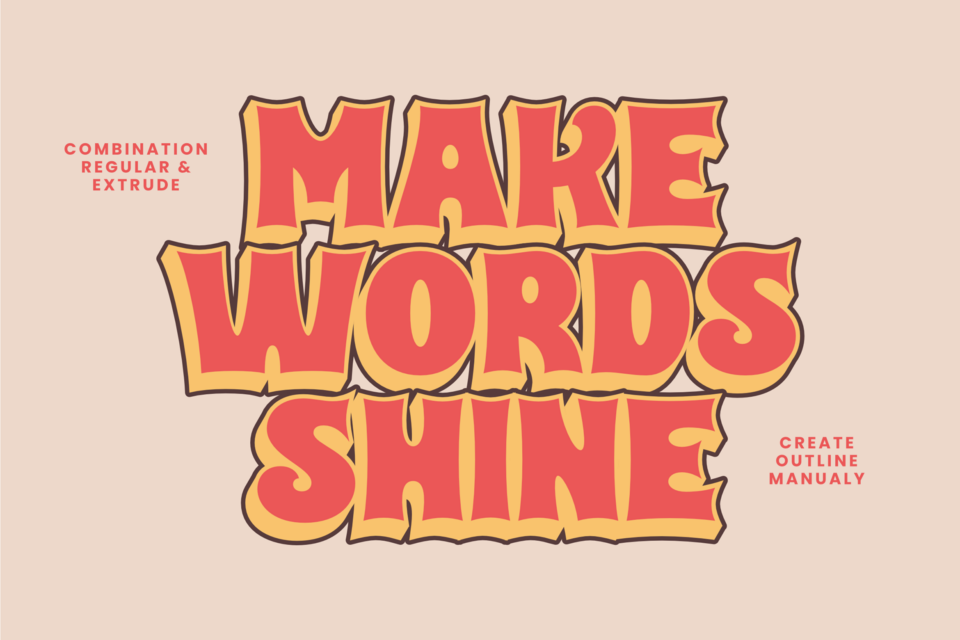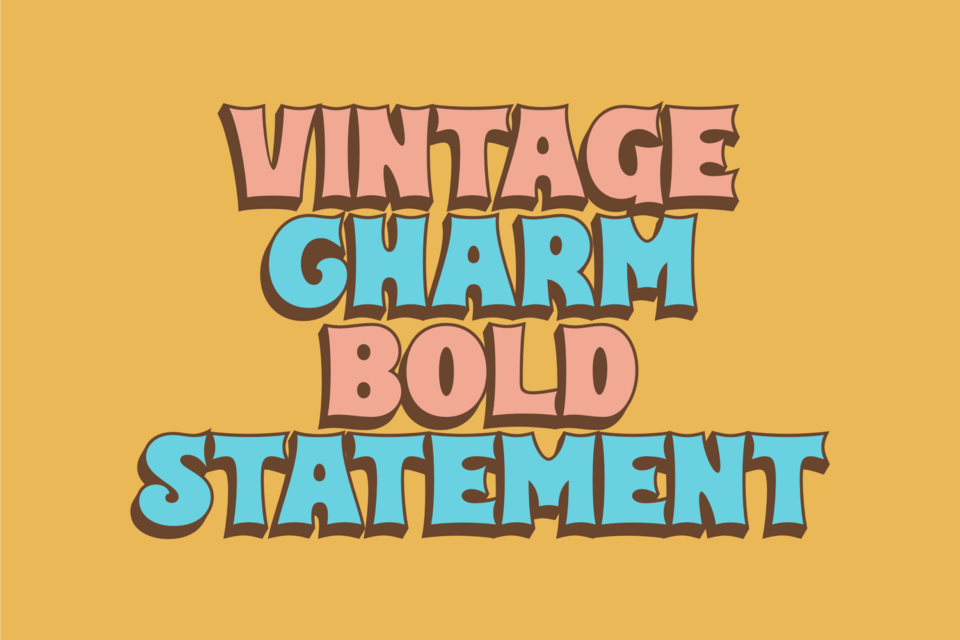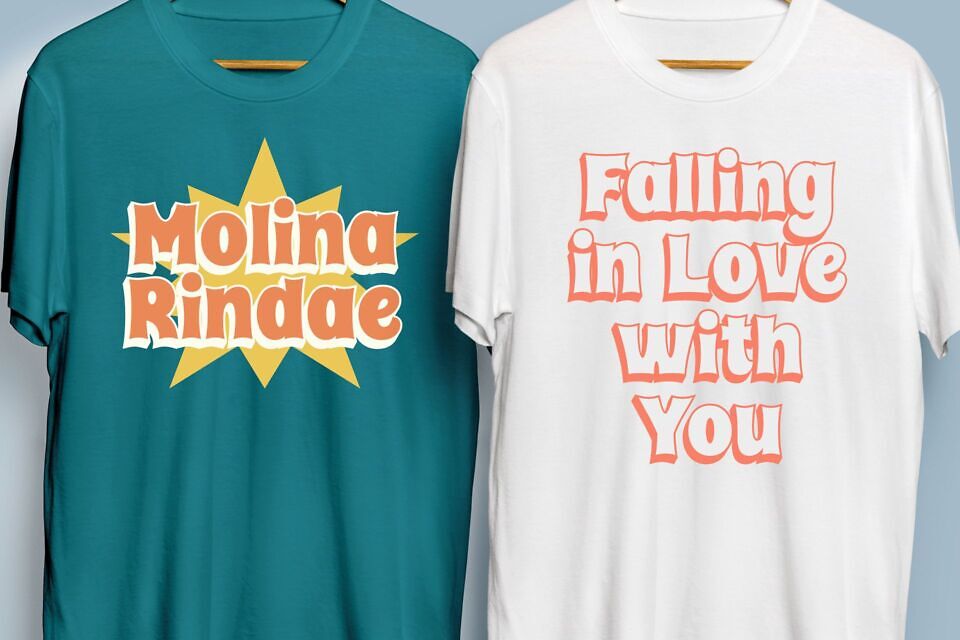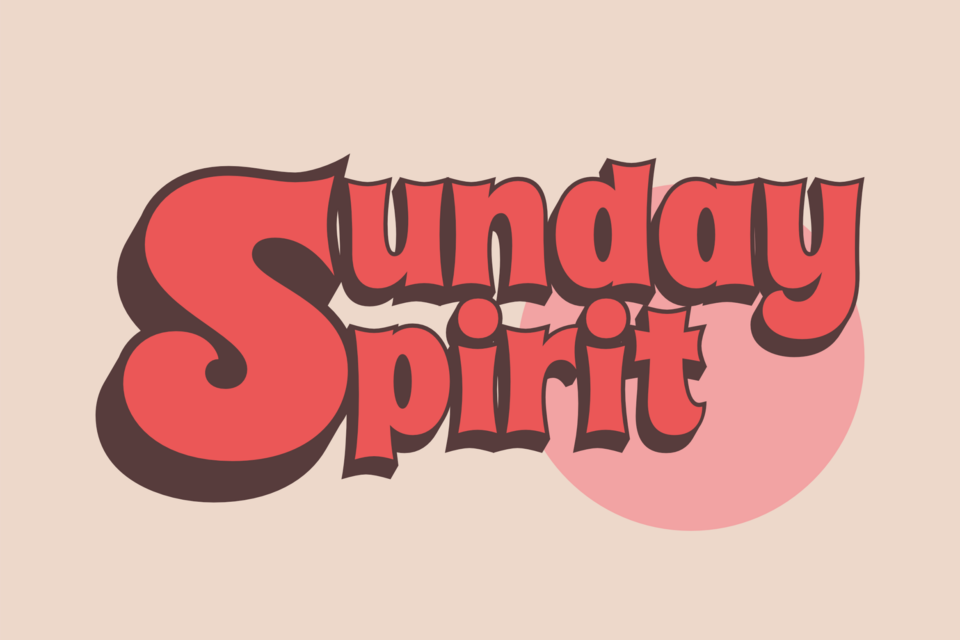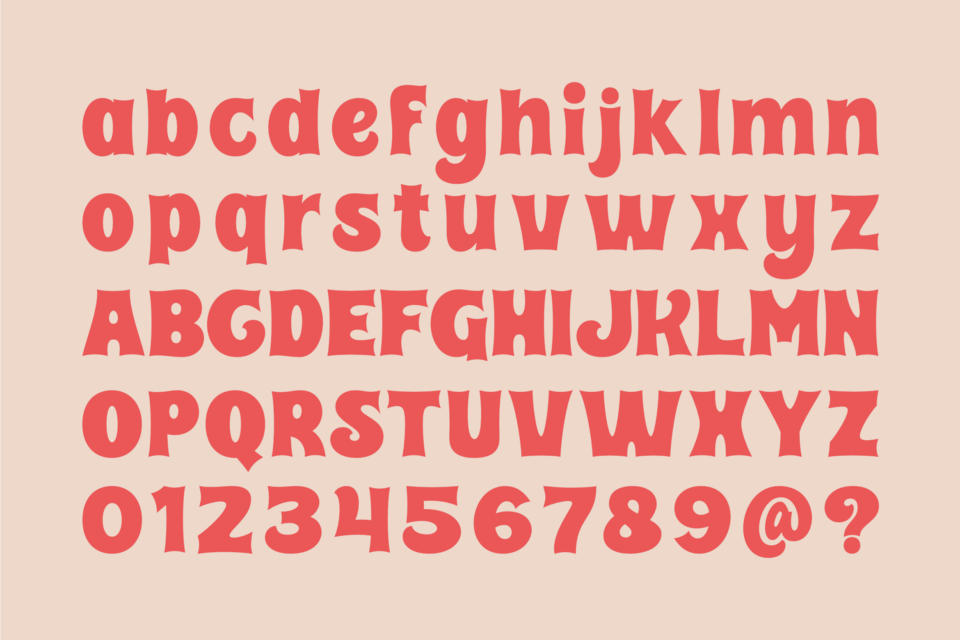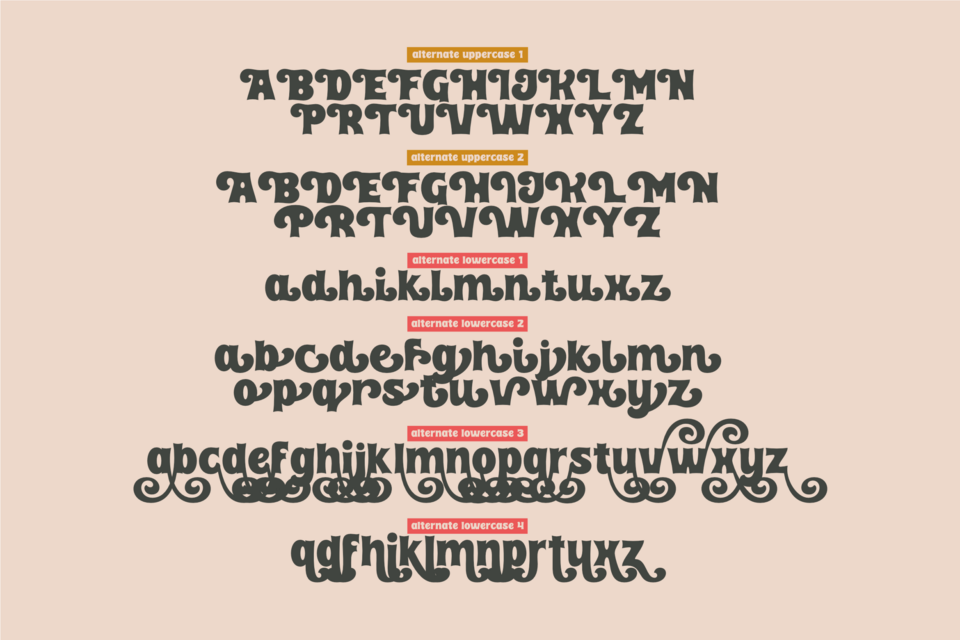
Tropical Organic is a bold and playful retro serif font with a groovy, hand-drawn feel. Its curvy and dynamic letterforms exude a warm, nostalgic vibe, making it perfect for vintage-inspired designs, branding, packaging, and summer-themed projects.
The extrude effect adds depth and a fun 3D touch, enhancing its bold personality. Whether you’re working on posters, logos, or social media graphics, Tropical Organic brings a lively and energetic charm to your typography.